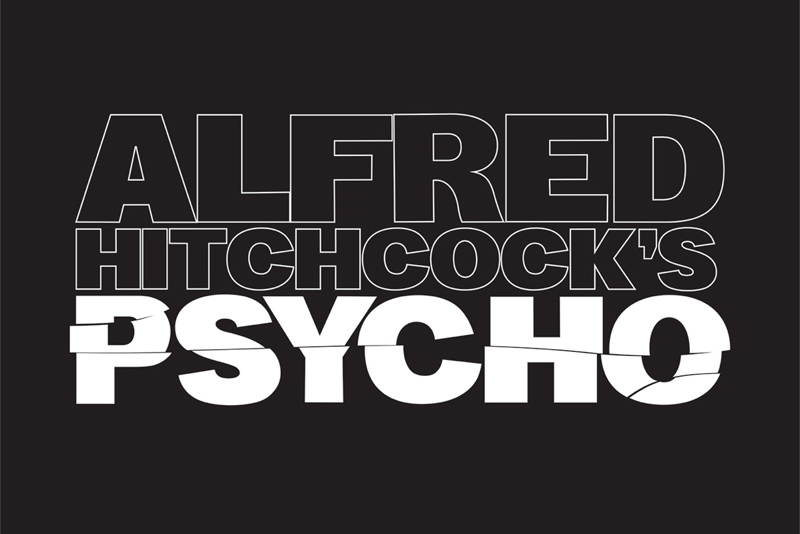
Anderson Grotesk Black Font – Free Extrabold Typeface
Props to Stephen French for designing and releasing this useful Anderson Grotesk Black font. This extrabold typeface will look awesome in a diverse number of graphic design projects.
Meet the newest member of the Anderson Grotesk family.